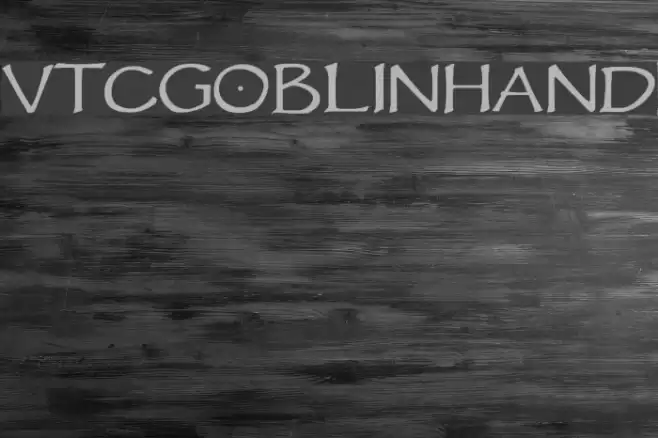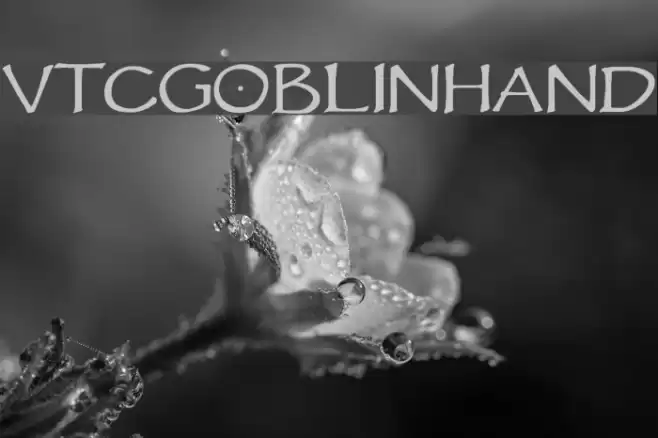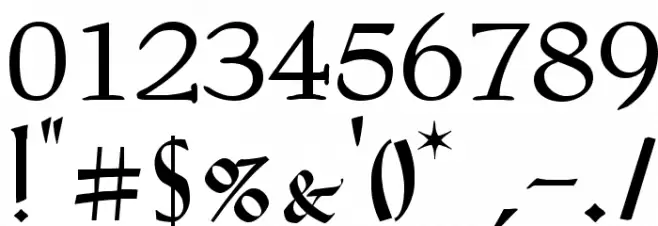
VTCGoblinHand Font
VTCGoblinHand Description
This font features a unique and whimsical design, characterized by its playful and slightly irregular strokes. The letters have a hand-drawn appearance, with uneven lines and quirky details that give it a distinctive personality. The uppercase and lowercase letters maintain a consistent style, with some characters incorporating circular elements or unexpected angles. The numbers and special characters follow the same playful aesthetic, making the font suitable for creative and informal projects. Its overall style is both fun and artistic, appealing to those looking for a font with character and charm.
A whimsical, hand-drawn font with playful and irregular strokes from Uncategorized fonts.
- Proposed Projects: Ideal for children's books, fantasy-themed designs, greeting cards, and creative branding.
- Use Case: Headlines, Logos, Creative projects